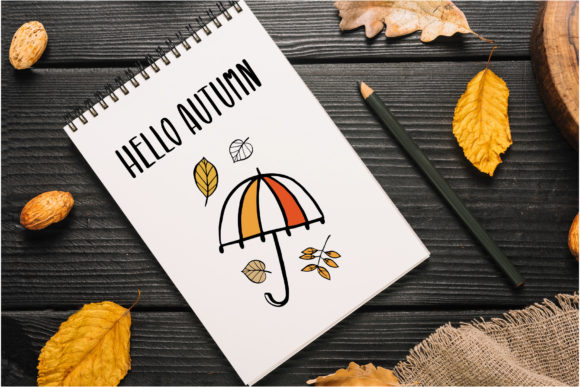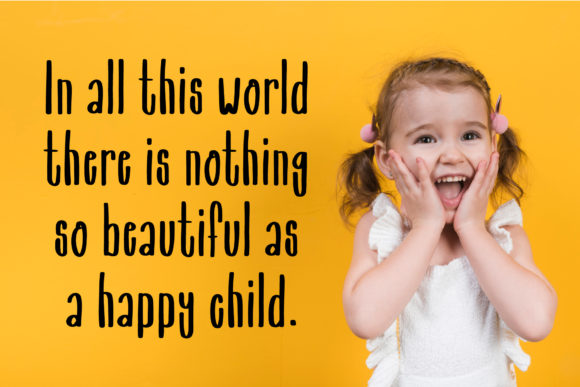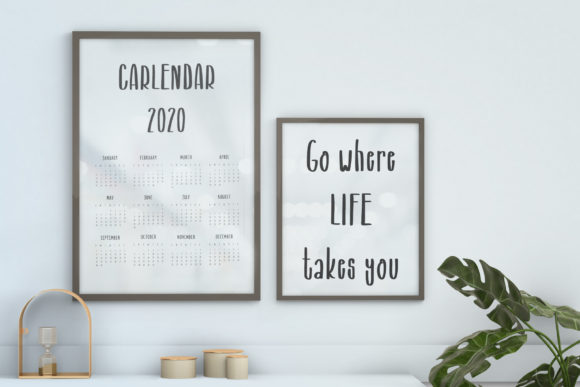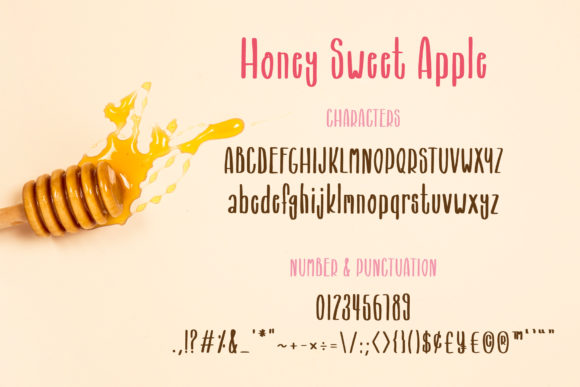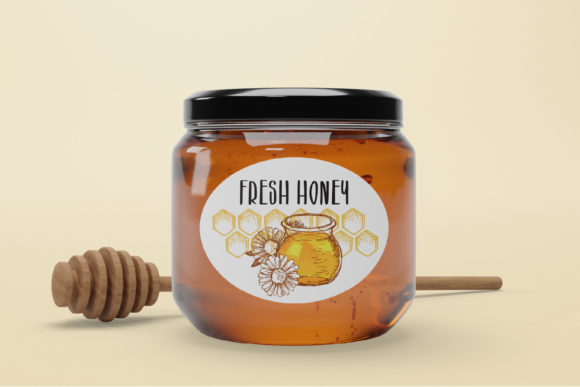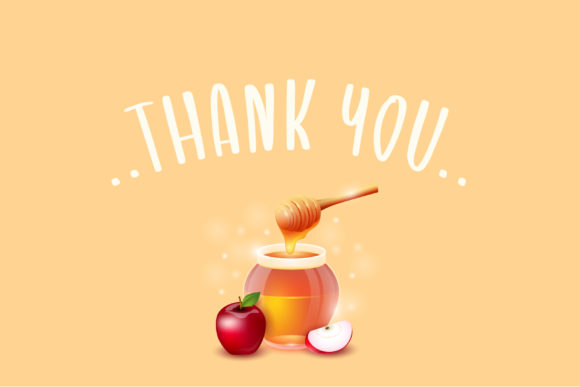
Honey Sweet Apple Font
About Honey Sweet Apple Font
Honey Sweet Apple is a friendly handwritten font. It features a playful and quirky style and it will look great in social media posts, posters, flyers, greeting cards and much more!